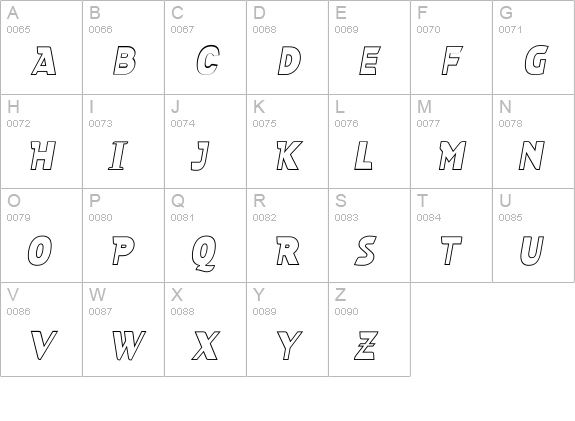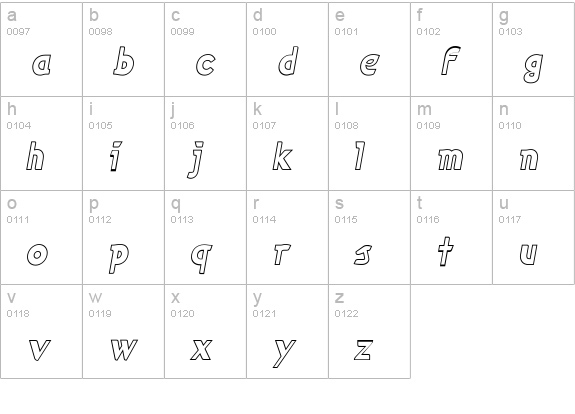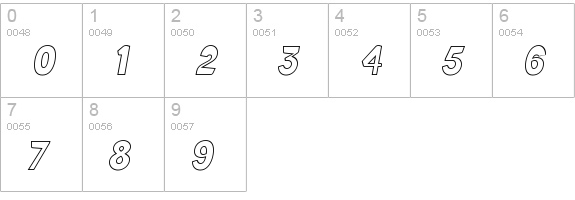
Cuban-OutlineItalic font is a stylish and modern typeface that combines sleek lines with a touch of elegance. Its italicized design adds a unique flair to any project, making it perfect for headings, titles, and creative design work. The font exudes a sense of sophistication and creativity, making it a versatile choice for both digital and print applications. What makes Cuban-OutlineItalic font even more appealing is that it is available for free download at FontsMarket.com. This means you can easily access this striking font and incorporate it into your projects without any cost. Whether you're a designer looking to add a contemporary edge to your work or a content creator searching for a font that stands out, Cuban-OutlineItalic is a fantastic choice that won't break the bank. Download it today and elevate your designs with this sleek and stylish typeface.